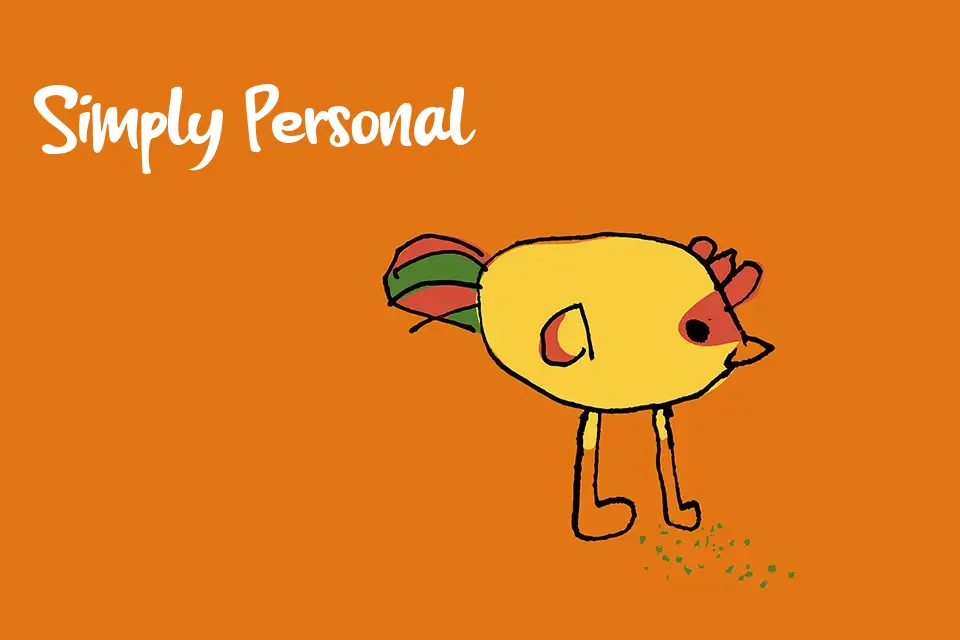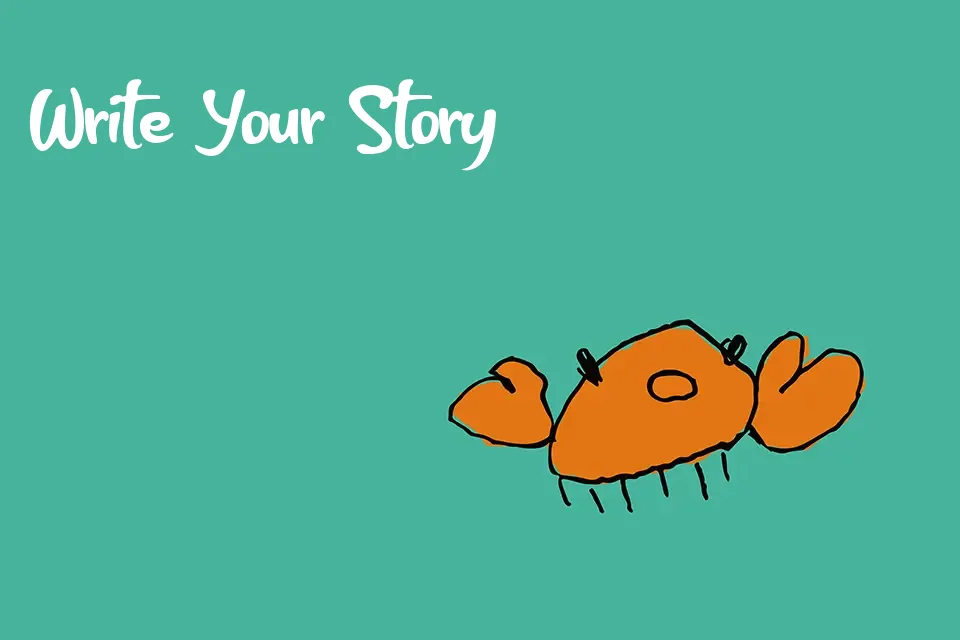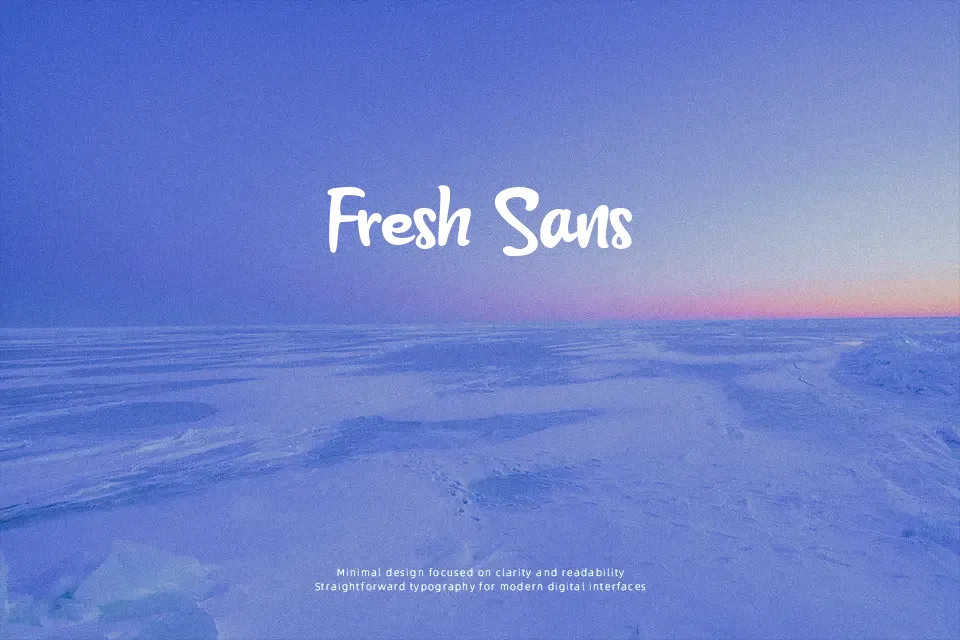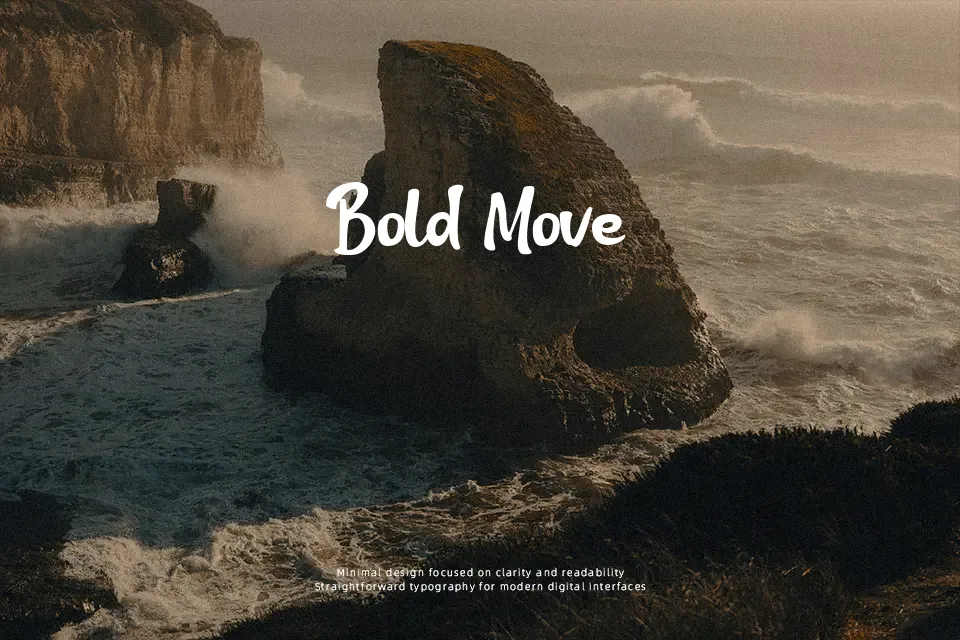
Think Smart Font
Think Smart Font exhibits an animated display structure built around thick, irregular stroke weights and soft, rounded terminals. The letterforms carry an energetic comic rhythm with bouncy baseline placement, asymmetrical counters, and generously widened uppercase proportions. Moderate letter spacing keeps individual glyphs visually distinct, which helps maintain clarity across punchy headline treatments and prominent merchandise graphics. In practical applications, the design functions smoothly across arcade game banners, youth branding assets, and casual food packaging labels. However, the deliberate stroke thickness and quirky character geometries cause visual clutter in continuous body text, making the typeface unsuited for dense multi-line paragraphs or small technical captions.
Best For: comic book titles, kids apparel graphics, video game banners, snack food packaging
Not Ideal For: long paragraph text, mobile interface labels, legal contracts, dense editorial layouts
Perfect for headline, kids, and logo, with a bold and comic style.